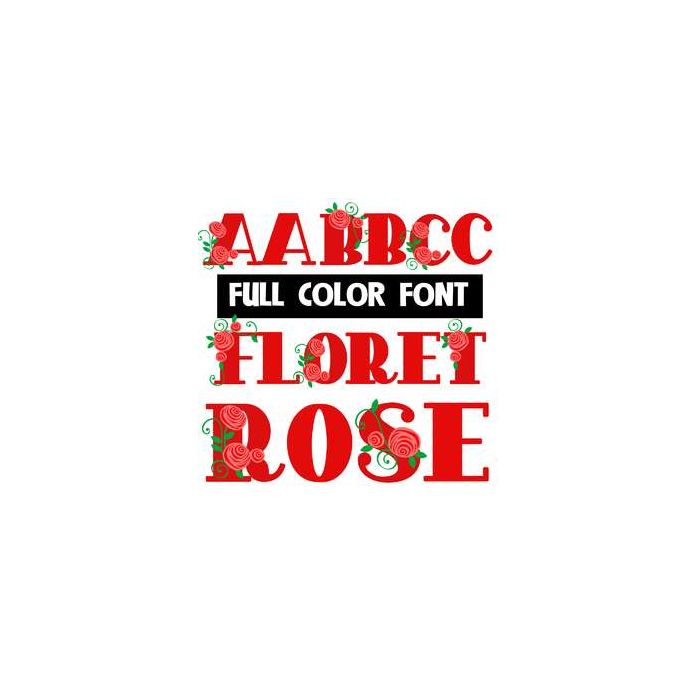
This pretty full-color font features red roses on the uppercase. For best results mix up both cases as you type. This font works best for titles, displays, posters and more. Please note color fonts will show as black in non compatible programs. This font type is compatible with Silhouette Studio.